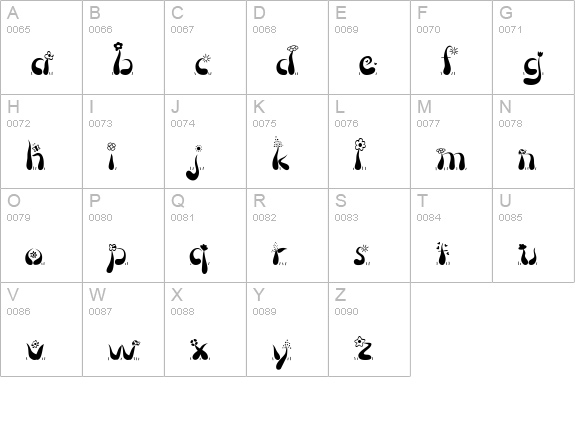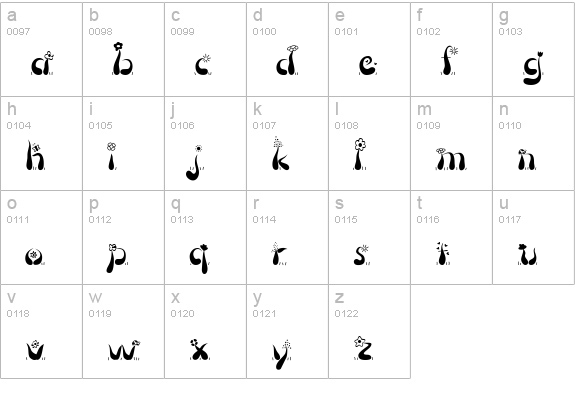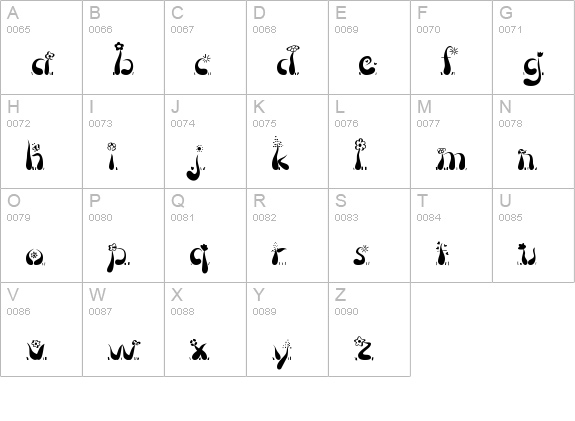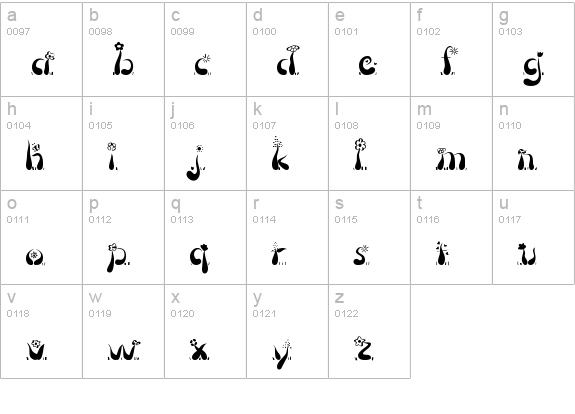
CK Springtime Font Details
Introducing CK Springtime font, a whimsical and playful typeface that captures the essence of the season of renewal and growth. This delightful font features charming swirls and curls that add a touch of elegance to any design project. Perfect for greeting cards, invitations, posters, and more, CK Springtime font is sure to bring a breath of fresh air to your creations. And the best part? CK Springtime font is completely free to download at FontsMarket.com! Embrace the beauty of spring with this lovely typeface and let your creativity bloom. Get your hands on CK Springtime font today and add a touch of charm to your designs.